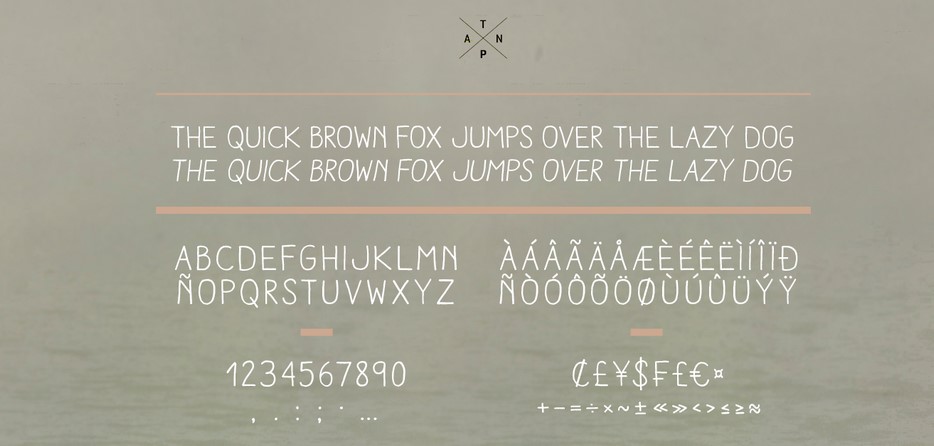
Aracne Font
Aracne Font is referred to as the quality textual content generator. This typeface stocks similarity with the ultra condensed font. This font makes the content material look stylish.
Style Of Aracne Font Free